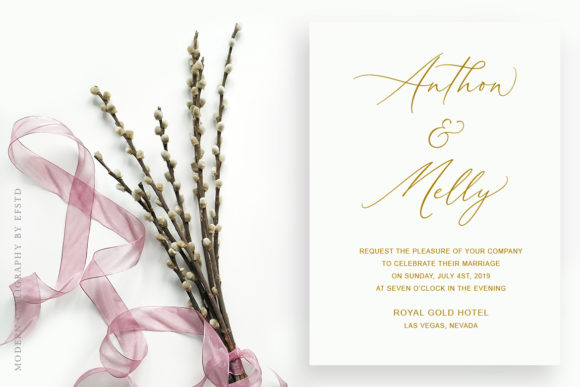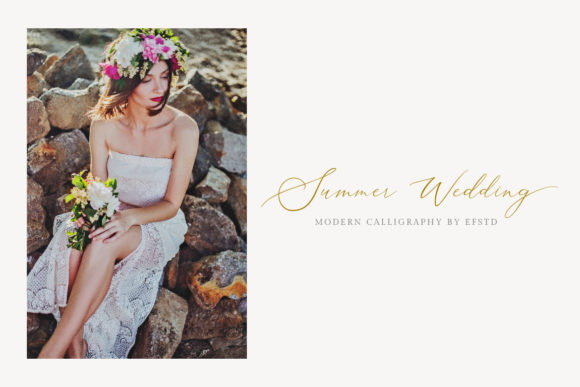
Aerotis Font
db-ku.com - Script & Handwritten -- Aerotis is a bold and beautiful handwritten font with a stunning feel. It will elevate any design project!